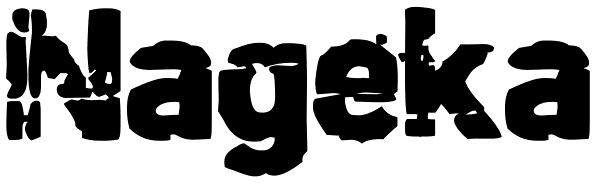
Nageka
Nageka is a distorted typeface, ideal for posters, slogans, headlines, particularly for hardcore bands' posters. The additional set of dirt patterns is comfortable to use with subtitles. Language support includes Western, Central and Eastern...
Nageka
Nageka Dirt